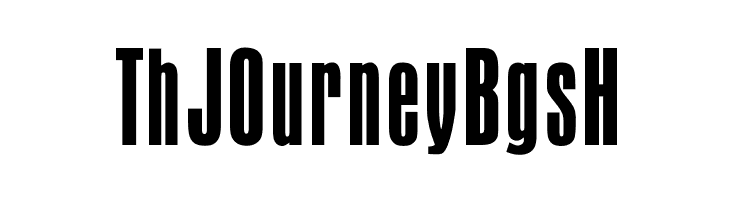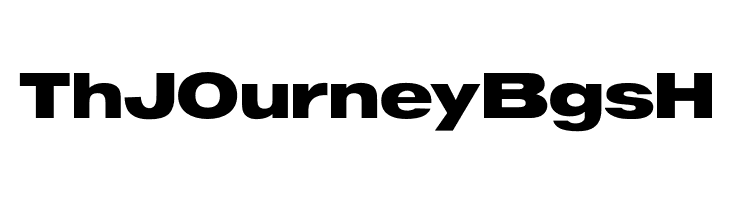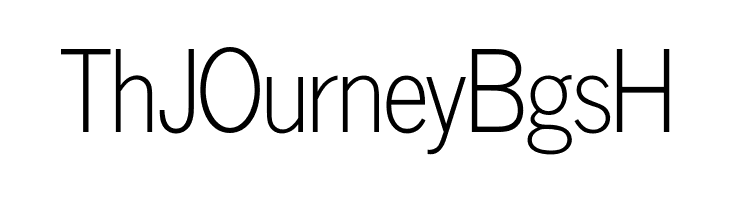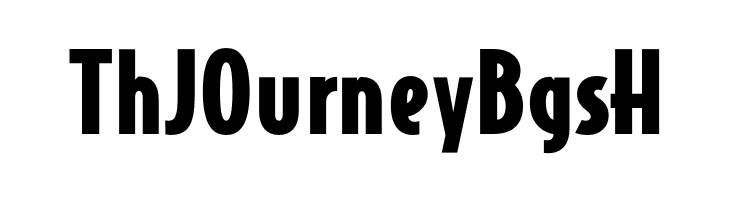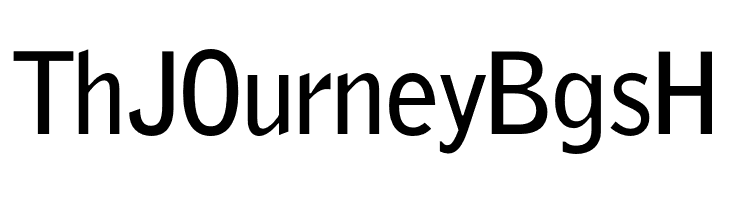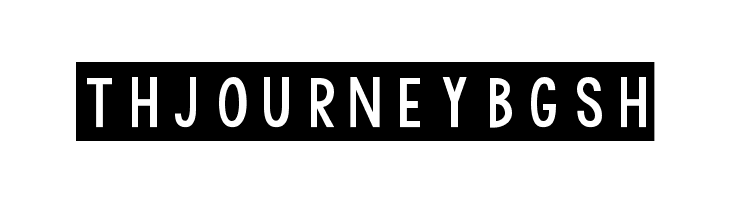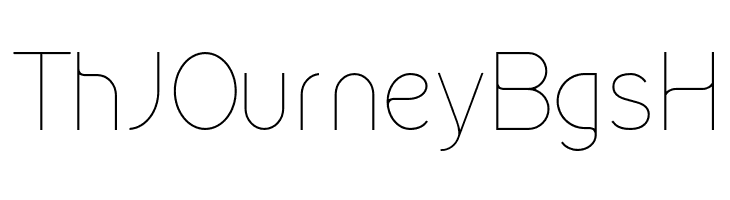
A bold, condensed font with tall, narrow letters and minimal spacing.
A bold, wide font with strong, uniform strokes and tight spacing, perfect for impactful headlines.
A modern, geometric sans-serif font with clean lines and balanced spacing.
A bold, impactful font with thick, uniform strokes and tight spacing.
A bold, modern sans-serif font with clean lines and balanced spacing.
A bold, modern font with geometric lines and uniform spacing.
A sleek, modern font with thin lines and balanced spacing.